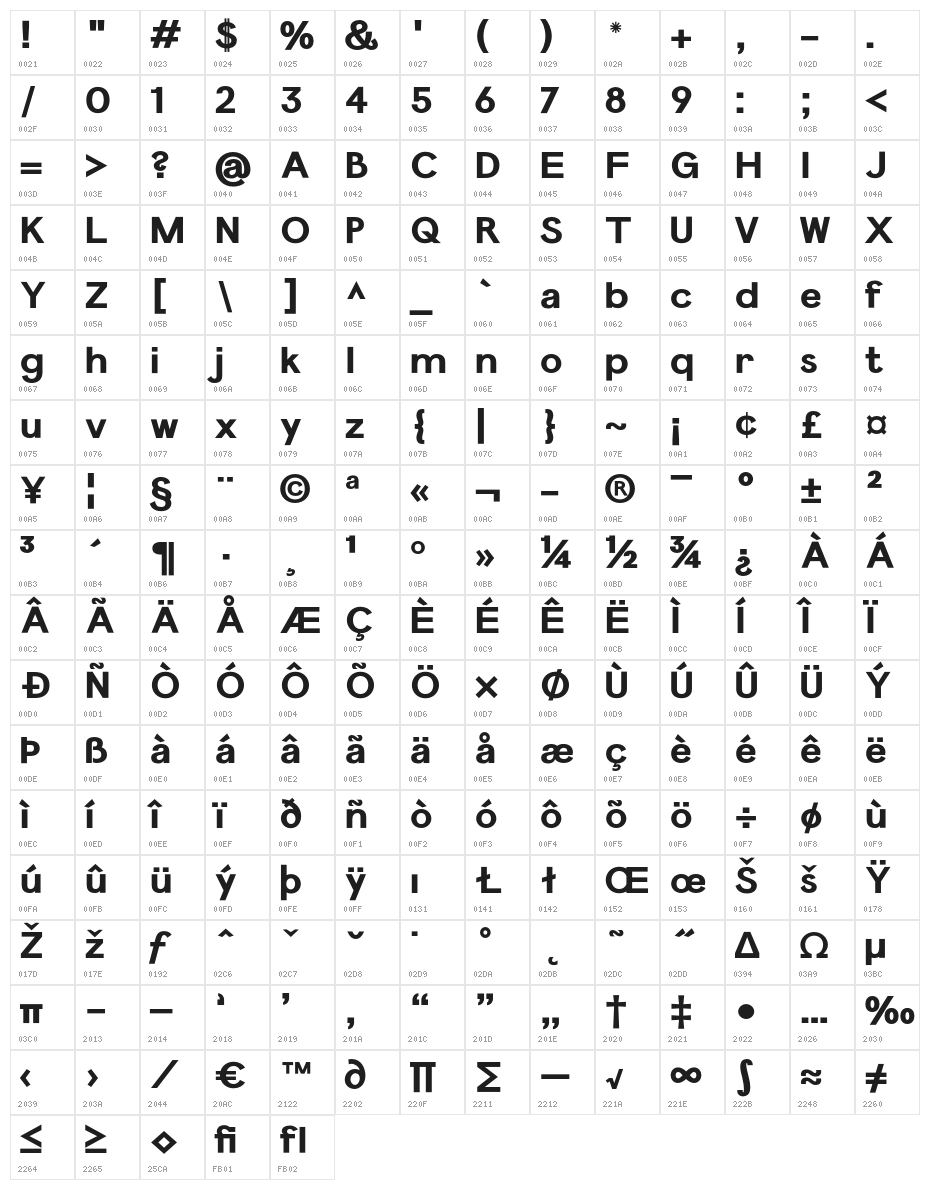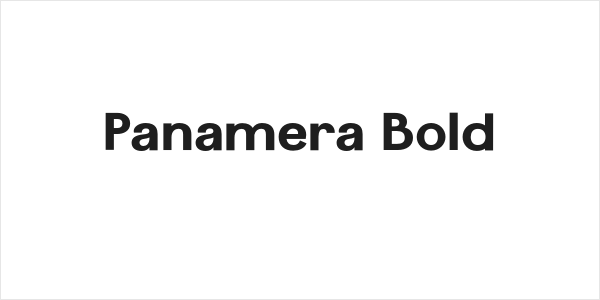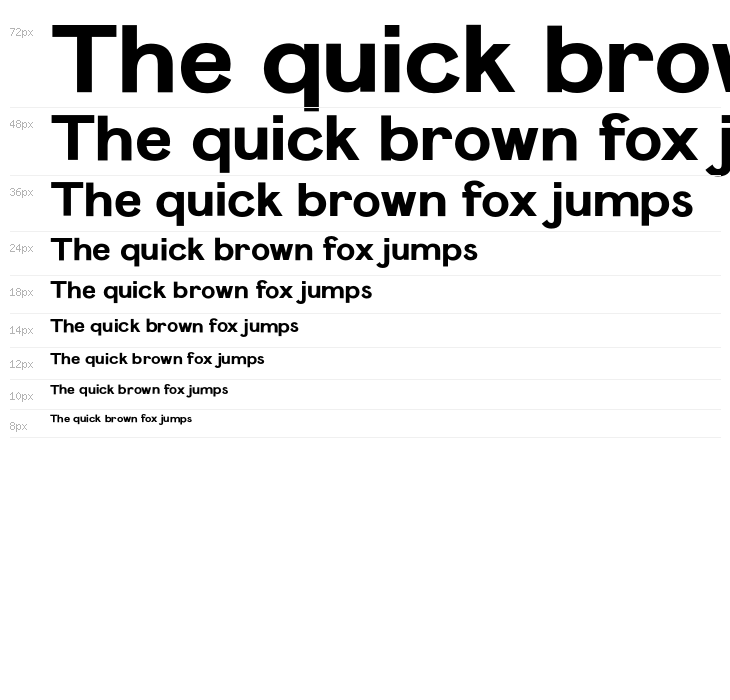
Panamera Bold Font
Panamera Bold Description
This font exhibits a bold and modern sans-serif style, characterized by clean lines and a strong presence. The uppercase and lowercase letters maintain a consistent weight, contributing to its bold appearance. The numerals are clear and easily distinguishable, making them suitable for various applications. Special characters are well-defined, adding versatility to the font's usage. The overall design is sleek and contemporary, ideal for making a statement in any design project.
| Use Case | Headlines, Logos, Advertising |
| Proposed Projects | Ideal for branding, headlines, advertising, and digital media where a bold statement is needed. |